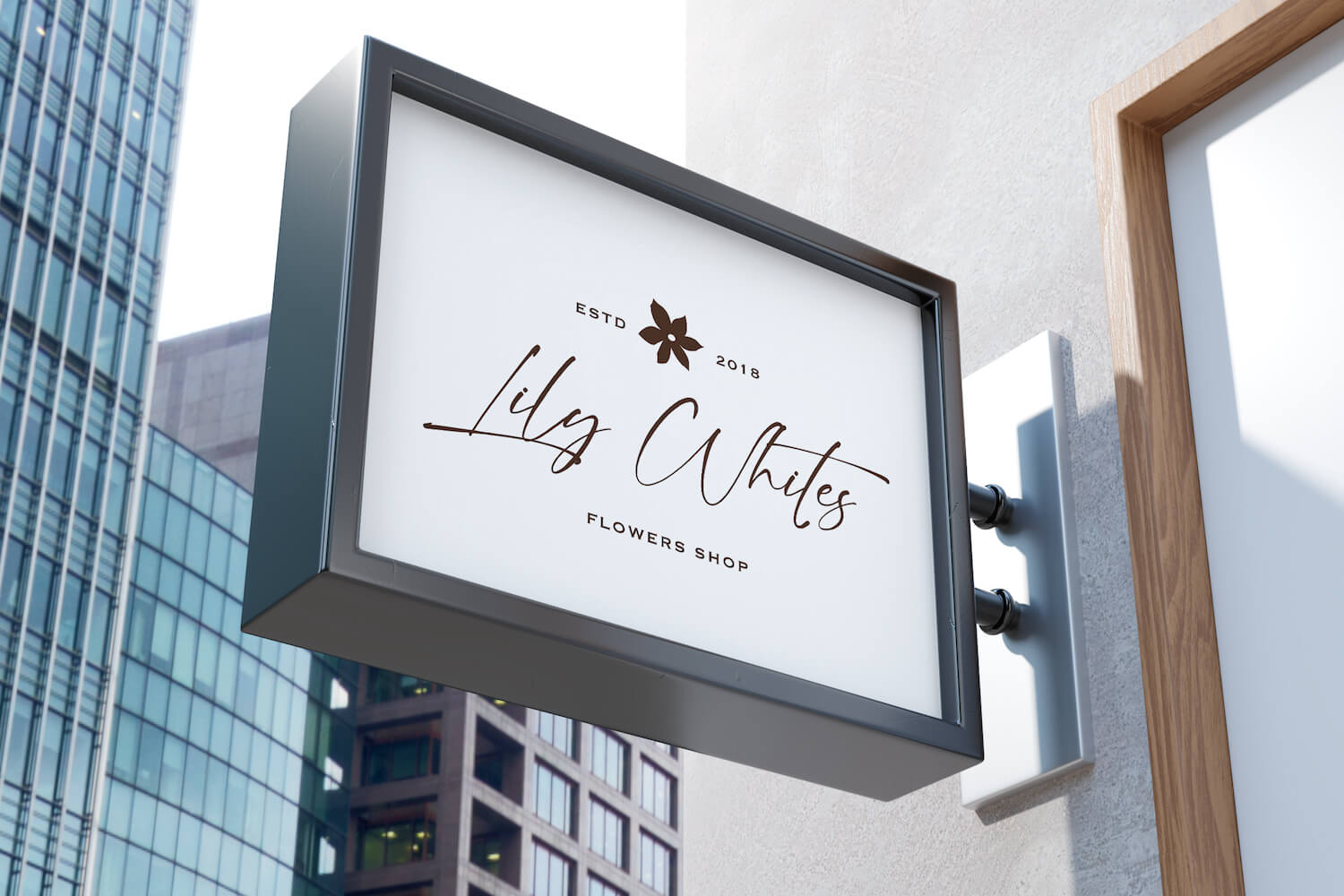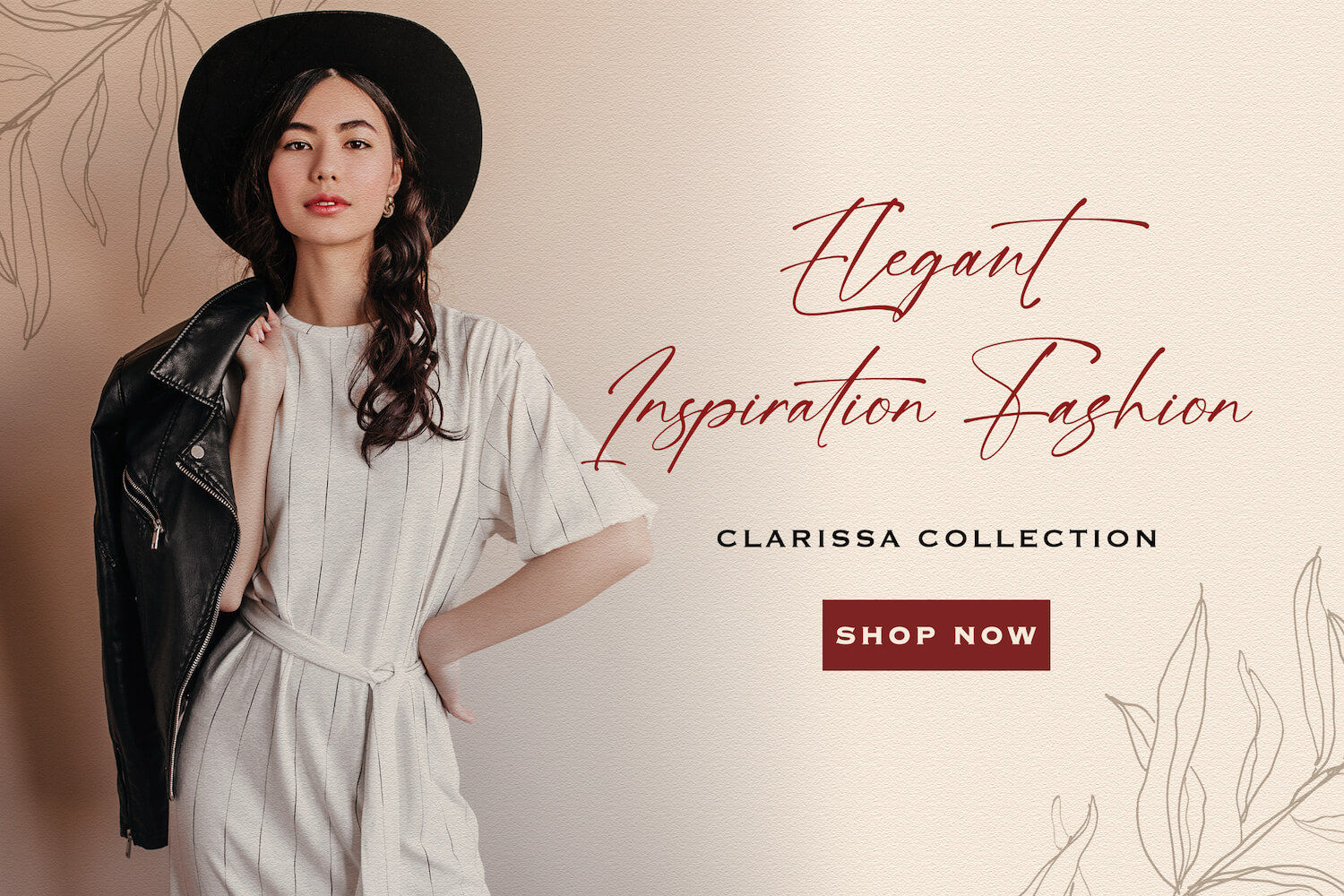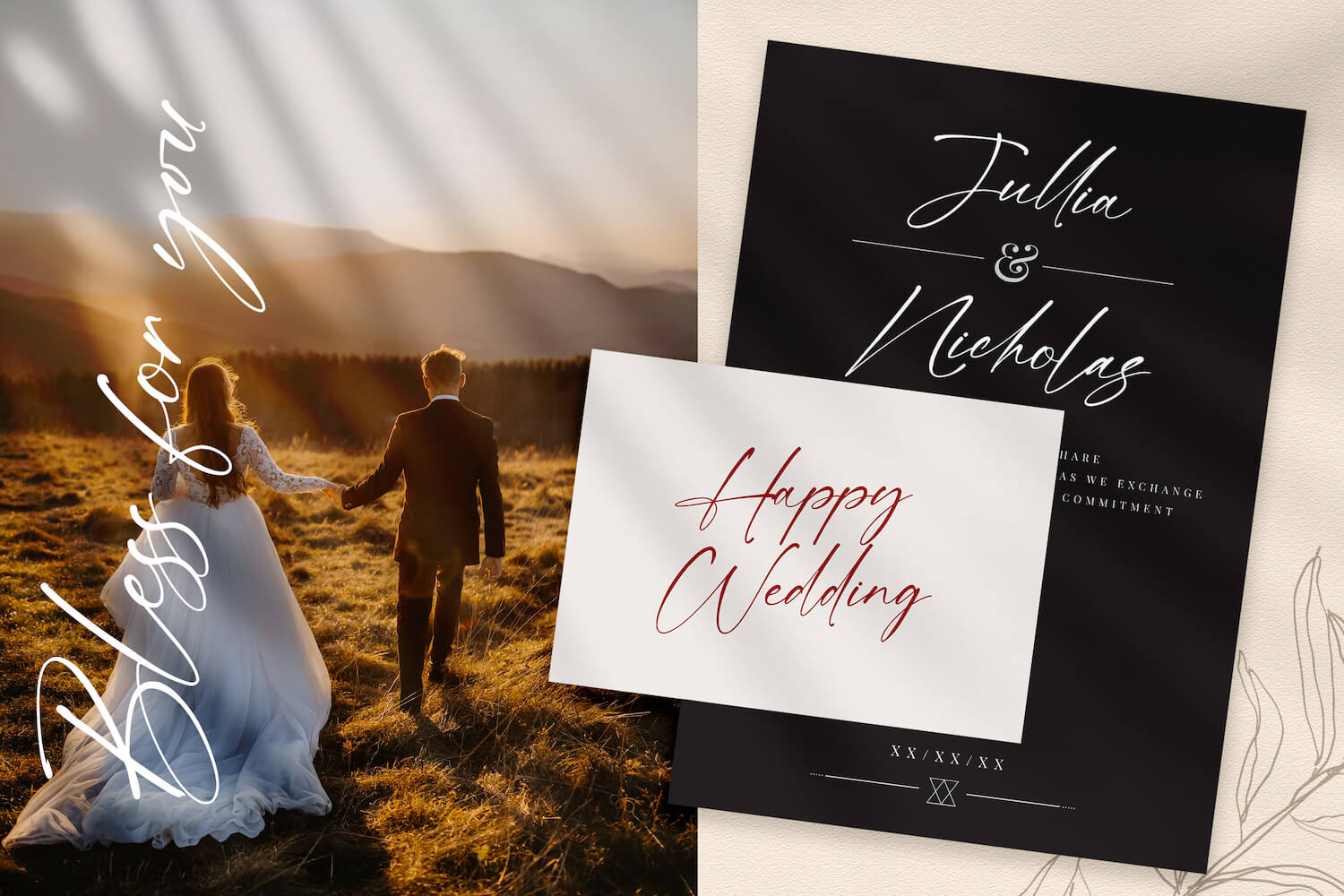
The Alatas Script Signature Script Font brings effortless elegance and refined personality to your typographic designs. With its flowing strokes, delicate curves, and thoughtfully designed ligatures, this script font captures the natural rhythm of handwriting while maintaining a polished, high-end aesthetic. Alatas Script feels personal yet elevated—perfect for moments that call for emotional resonance and visual grace.
This font shines in wedding invitations, feminine branding, fashion lookbooks, social media quotes, and editorial spreads. Its fine lines and dramatic flourishes make it ideal for signature logos, stationery, or upscale packaging, especially when paired with minimalist backgrounds or muted color palettes. The font’s built-in ligatures and multilingual support ensure your text looks cohesive, elegant, and globally accessible.
Whether you’re designing a romantic greeting card, promoting a boutique collection, or adding a handwritten touch to your website headers, Alatas Script delivers timeless sophistication wrapped in modern charm.